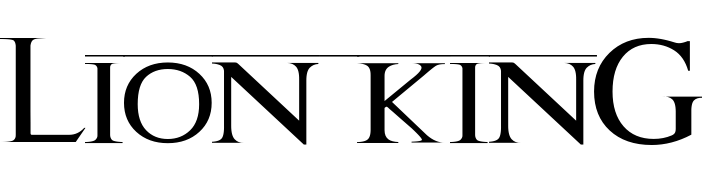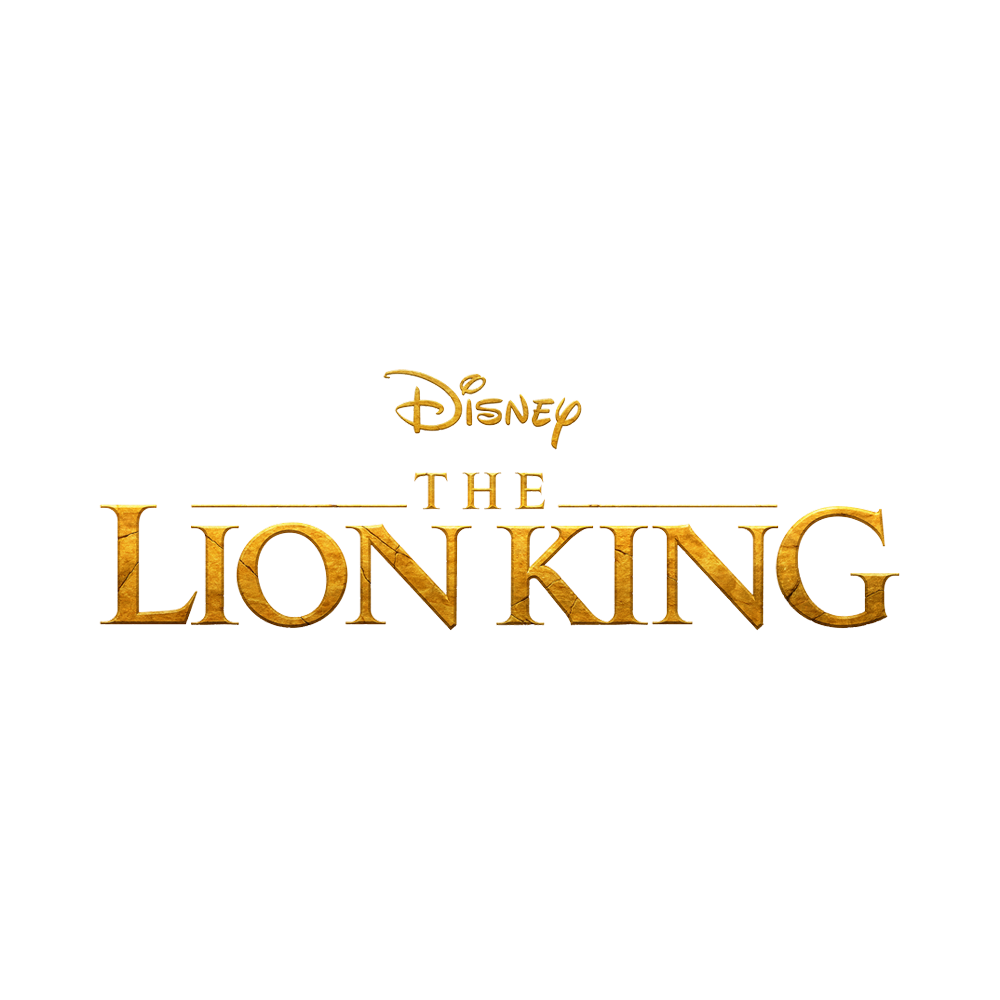
Lion King Font
Fonts in UseThe Lion King is a Disney animated film released in 1994. It tells the story of Simba, a young lion who must reclaim his rightful place as king of the Pride Lands.